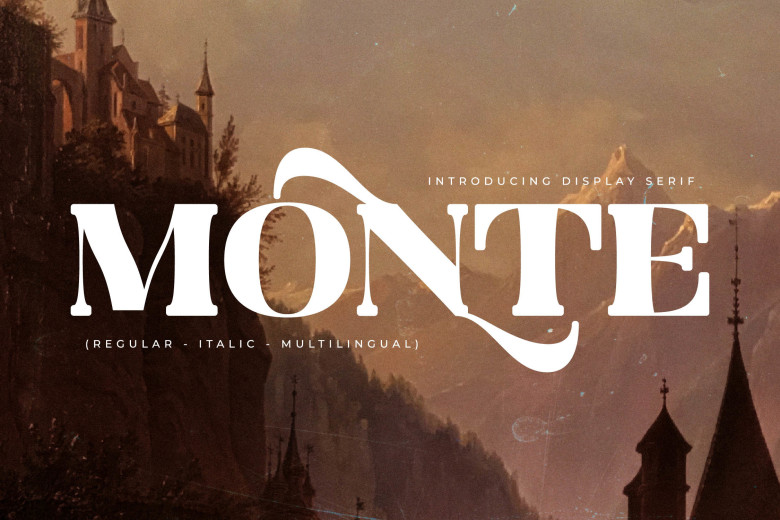
Monte Font
Monte is a contemporary take on classic serif typeface, perfect for luxury & elegant logos, book or film titles, clothing magazines, lettering projects or quotes.
Monte Serif Font